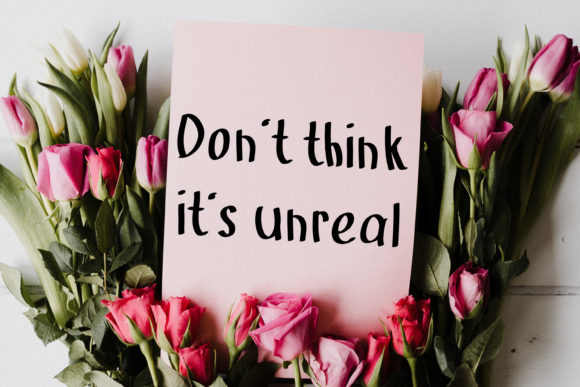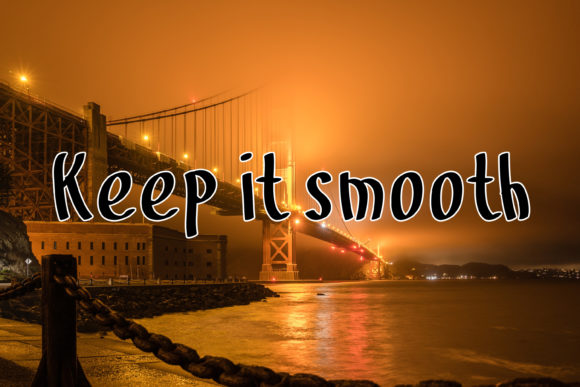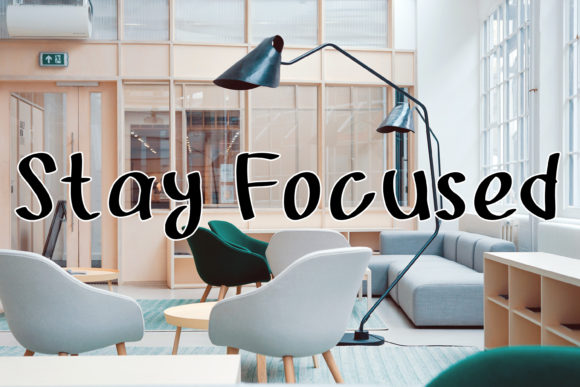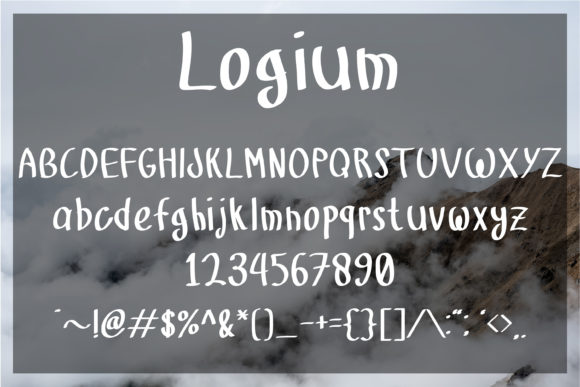
Logium Font
About Logium Font
Logium is a cool and friendly handwritten font. This adaptable font will look great on a variety of design ideas. It will add a fun and neat touch to each of your projects!